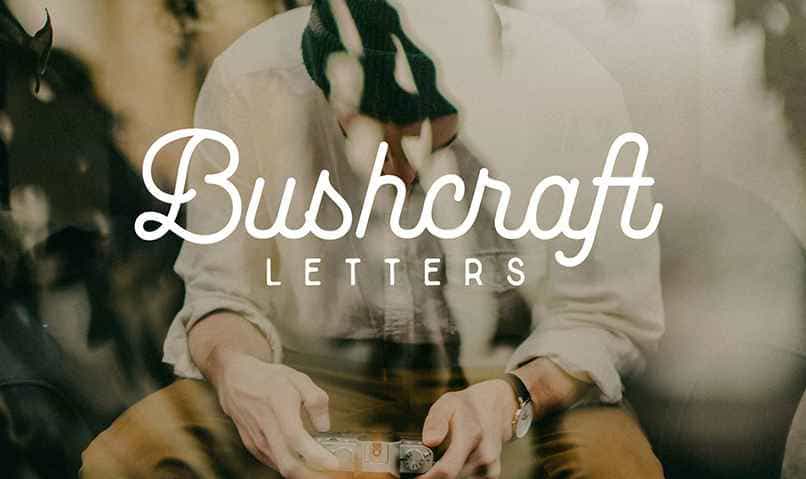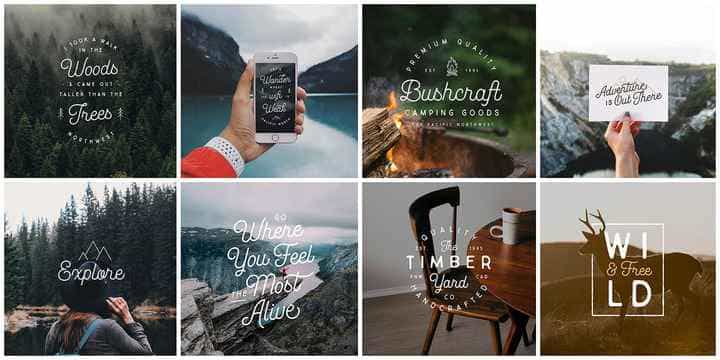
Bushcraft is a geometric monoline script and sans serif font inspired by retro style. This typeface belongs to one of the five weight of font that also incorporate sans serif font and art. The Bushcraft Basic and Pro scripts are in fact rather simple with a geometrical appeal. Bushcraft Basic scripts and the font styles that come with it include one set of 63 alternates and ligatures.